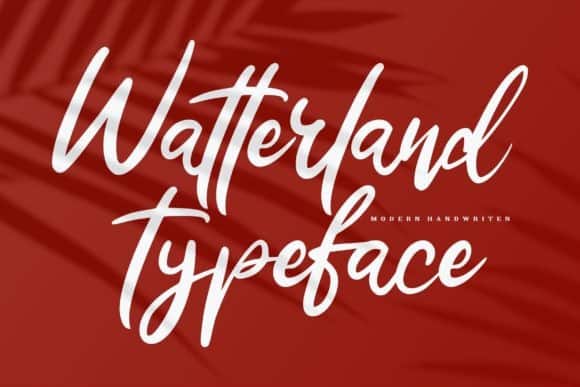
Watterland Script Font
Watterland Script Font results out of a stunning pairing of a brush pen and pencil that makes it look incredibly endearing and authentic. It’s designed and shared by Vunira Design. Watterland is a classy and modern script that’s extremely versatile. This unique font will take any design project to the next level.